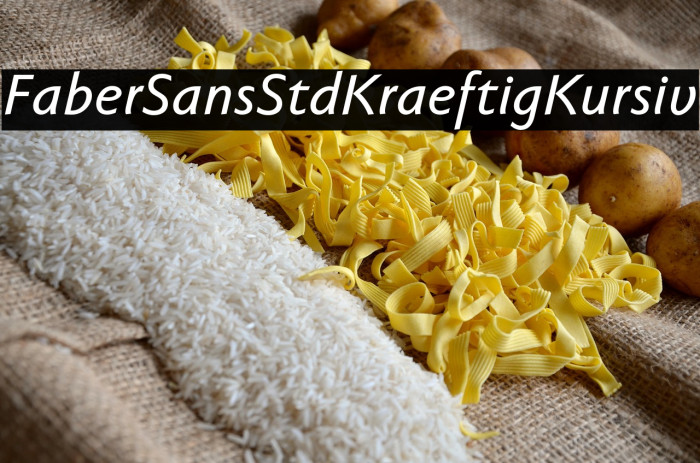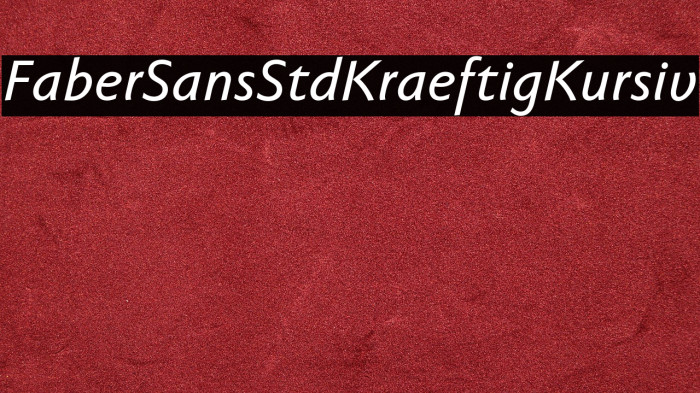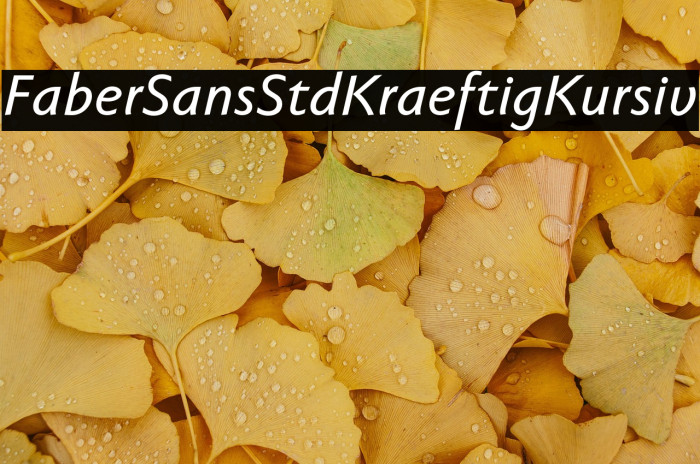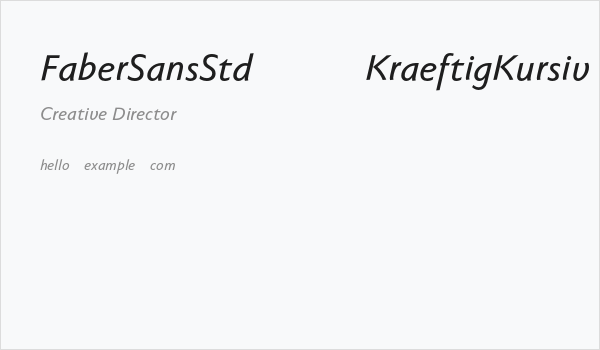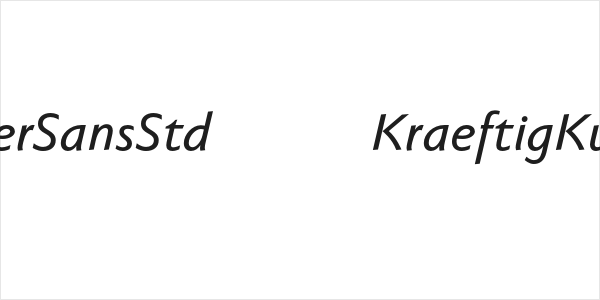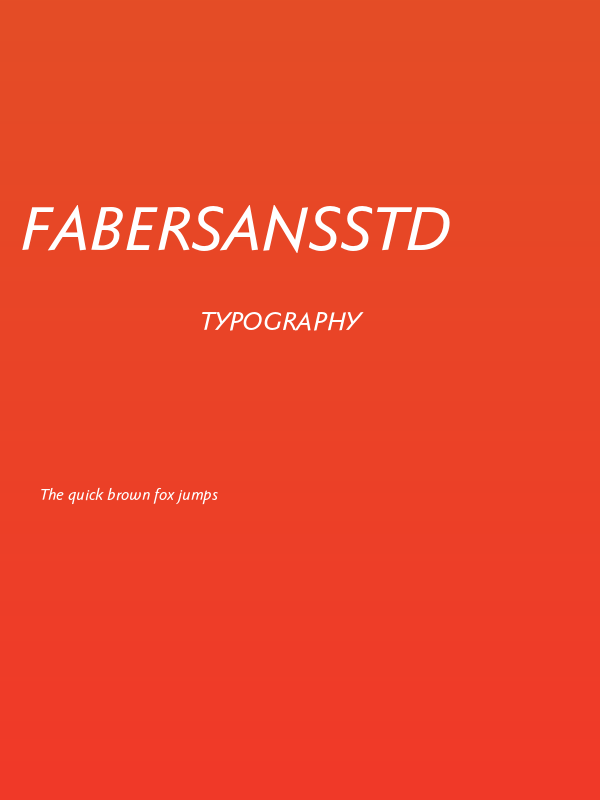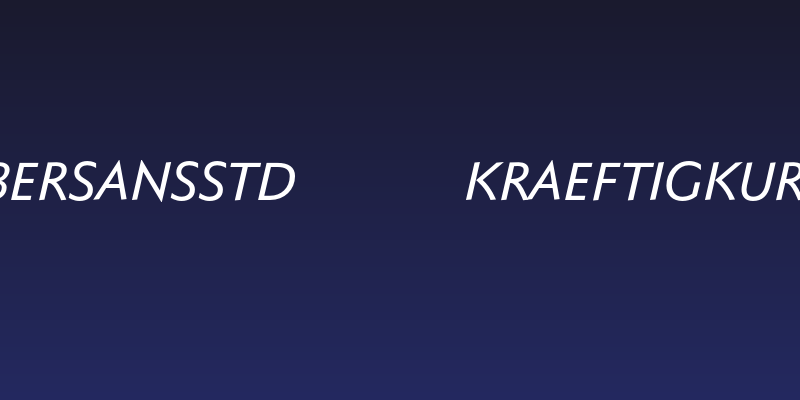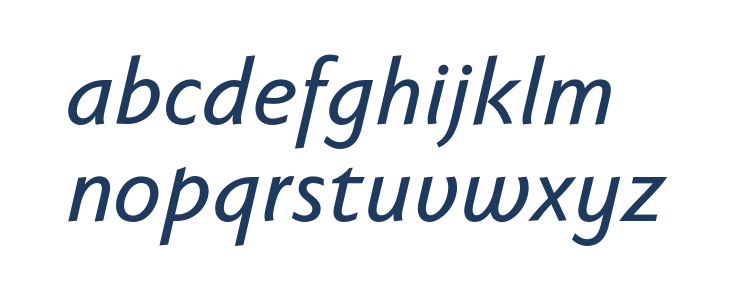
FaberSansStd-66KraeftigKursiv Font
FaberSansStd-66KraeftigKursiv Description
This font features a clean and modern sans-serif style with a slight italic slant, giving it a dynamic and forward-moving appearance. The characters are well-proportioned, with smooth curves and a consistent stroke width that ensures readability. The uppercase letters are bold and assertive, while the lowercase letters maintain a friendly and approachable feel. The numerals are clear and distinct, matching the overall aesthetic of the alphabet. Special characters are included, maintaining the same stylistic coherence. This font is versatile, suitable for both digital and print media, and can be used effectively in various design contexts.